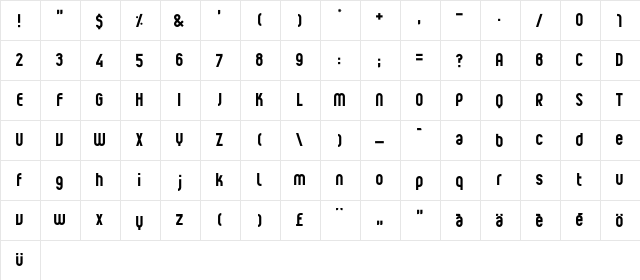
Globus Regular
Design Context for Globus Typeface
Globus takes a measured approach to typography — its balanced proportions and neutral character make it a reliable workhorse for both digital and print work.